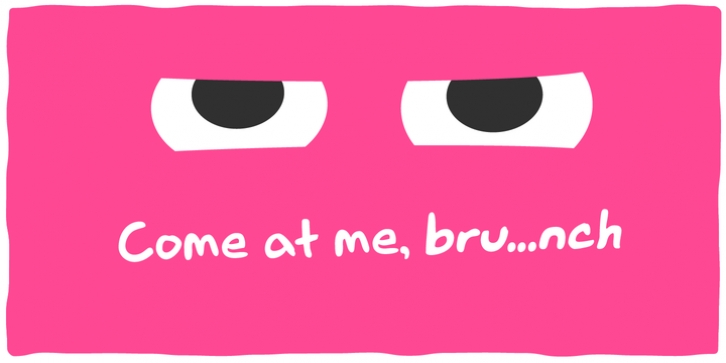
Mr. Brunch is flexible and perfect when a personal tone is needed, lightening the mood with a variety of styles. It was inspired by hand-lettered comics, the playful kind, not the blood and guts superhero kind. There are four(4!) distinct weights, two bonus weird styles, all with corresponding obliques for subtle emphasis. Ligatures are available for double letter combos (like oo, bb, ee, etc.). It's also versatile enough to work for large chunks of text.